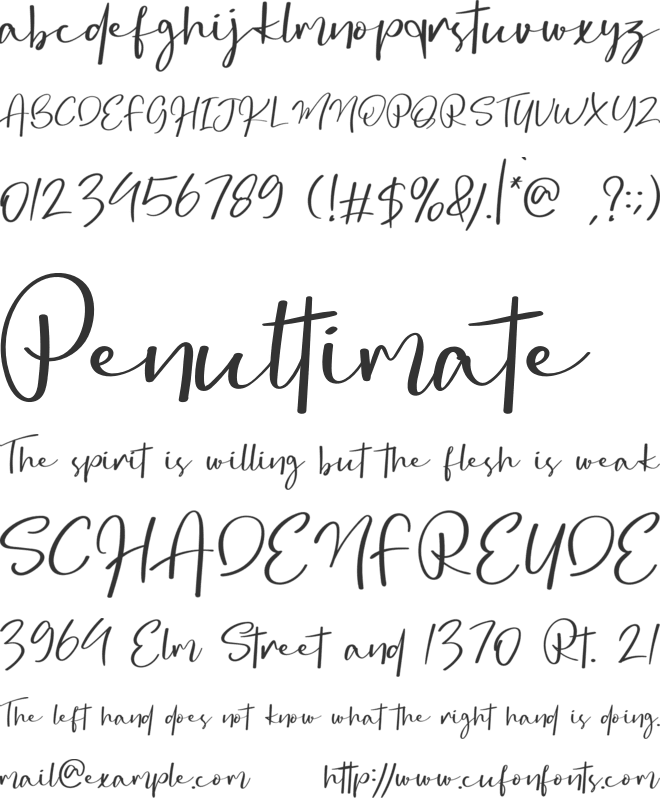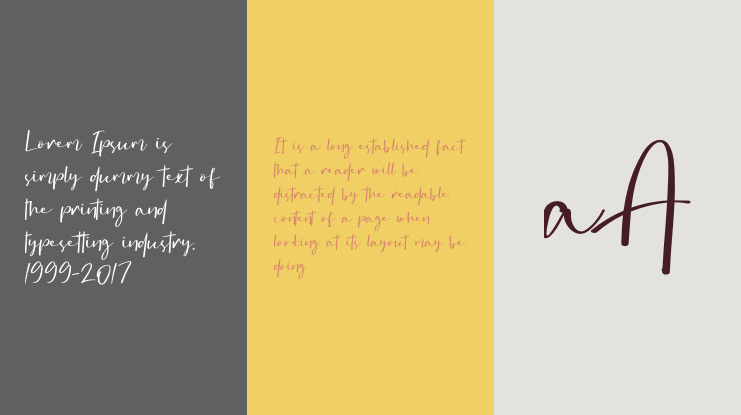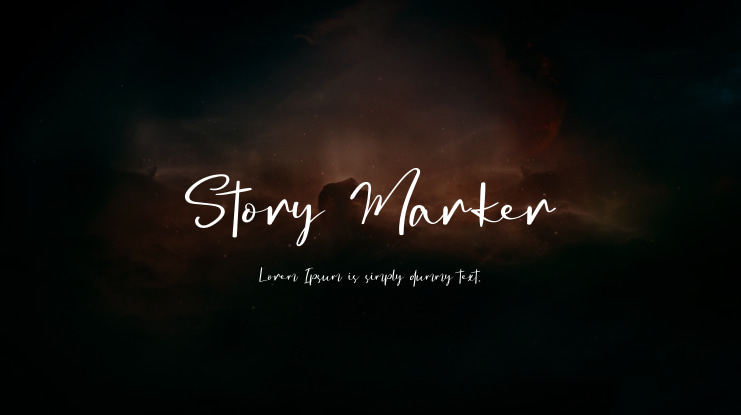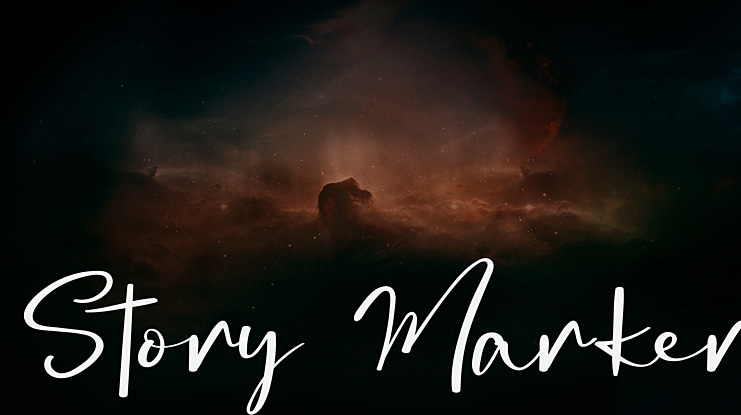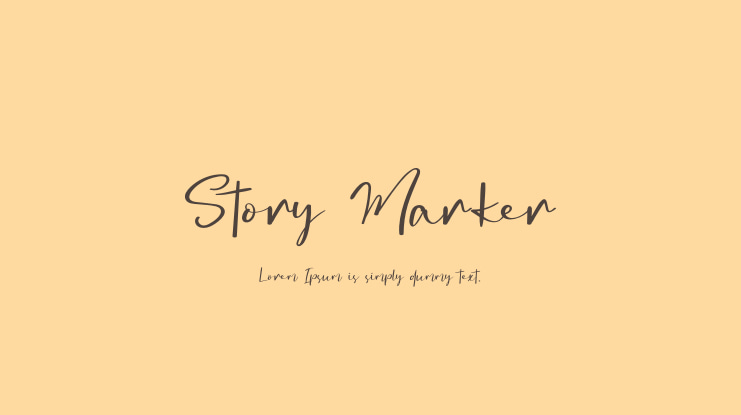
Story Marker Font
Story Marker is a lovely and timeless handwritten font. It is the best choice for creating eye catching logos, branding and quotes. Every letter has a unique and beautiful touch, which will make your design come alive!